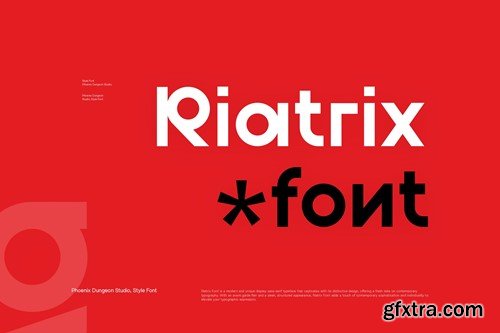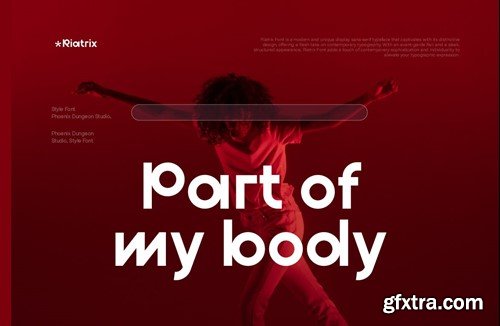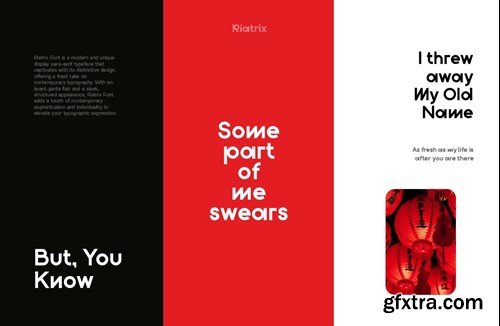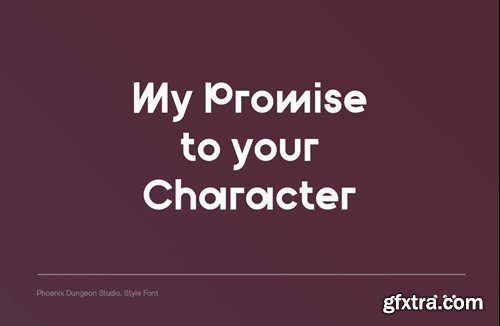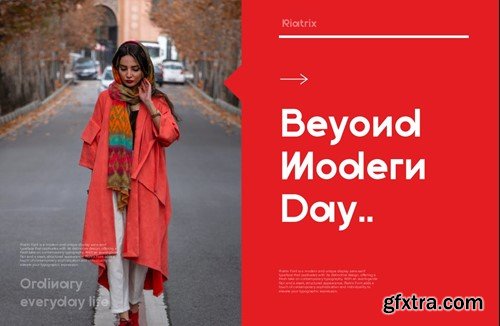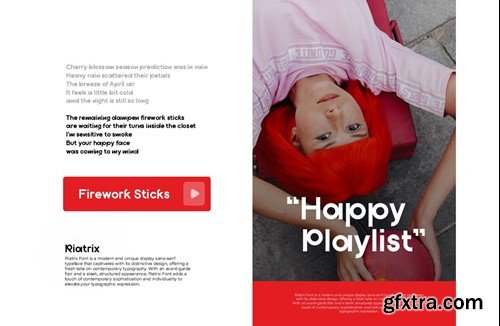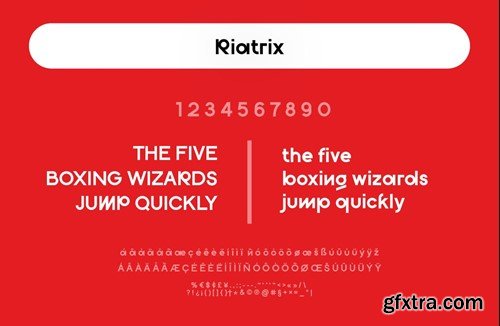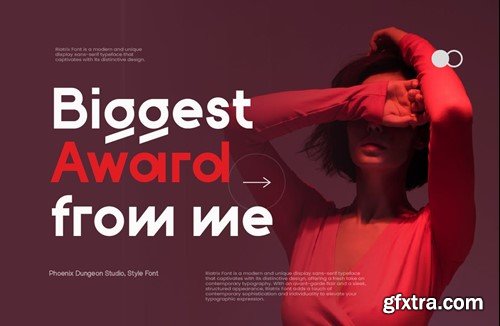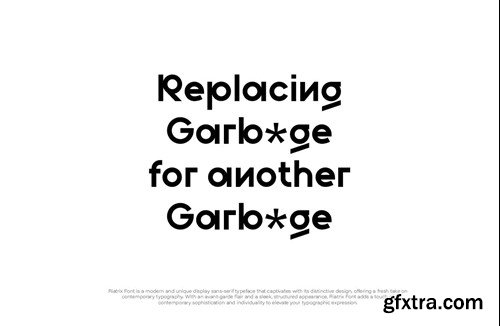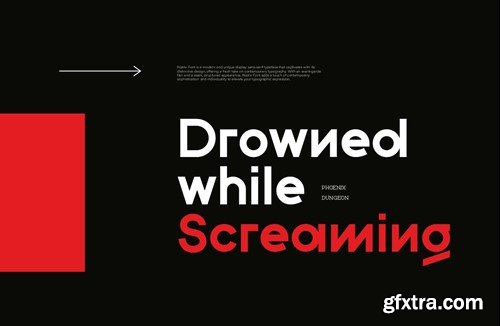
Riatrix Font
Riatrix Font is a modern and unique display sans-serif typeface that captivates with its distinctive design, offering a fresh take on contemporary typography. With an avant-garde flair and a sleek, structured appearance, Riatrix Font adds a touch of contemporary sophistication and individuality to elevate your typographic expression. What’s in the package : Thank you